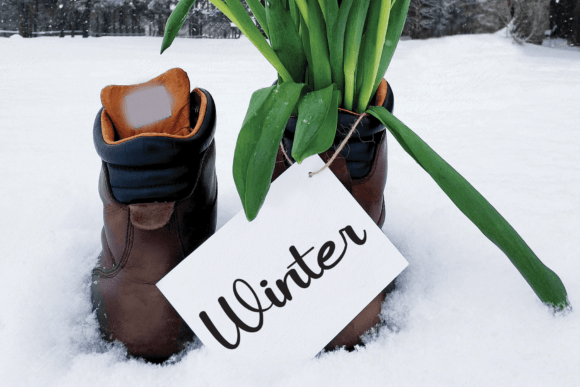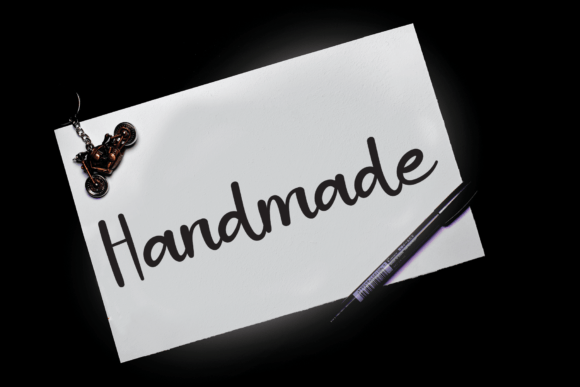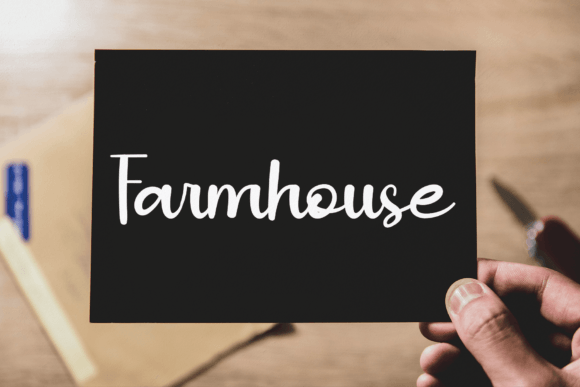
About Carrot Font
Creating a captivating and distinctive font is an art form that combines elegance, uniqueness, and timeless appeal. The unnamed handwritten font in question embodies these qualities, offering a truly one-of-a-kind experience for your favorite design projects.
At first glance, this font stands out with its unparalleled elegance, as if each stroke was meticulously crafted to perfection. The handwritten touch adds a layer of authenticity and warmth, creating an immediate connection with the audience. It’s not just a font; it’s a visual journey, an exploration of artistic expression.
What makes this font truly remarkable is its ability to be totally different from the conventional. It breaks free from the mundane, presenting a style that is both refreshing and innovative. It’s not bound by the constraints of typical fonts but rather carves its own path, inviting you to fall in love with its distinct character.
In the world of design, timelessness is a coveted attribute, and this font effortlessly captures that essence. Its style transcends trends and fads, making it a reliable choice for projects that aim to withstand the test of time. It’s not just a font for today; it’s a font for every era, a classic in the making.
Imagine the possibilities when you incorporate this font into your designs. Each letter becomes a brushstroke of creativity, a testament to the limitless potential of your imagination. It transforms ordinary projects into spectacular works of art, leaving an indelible mark on the visual landscape.
Whether you’re working on branding, invitations, posters, or any other creative endeavor, this font becomes a key player in the narrative. It speaks a language of elegance and innovation, telling a story that resonates with those who encounter it. It’s not just a font; it’s a conversation starter, a piece of art that sparks inspiration.
In conclusion, this unique handwritten font is more than just a tool for your projects. It’s an experience, a journey into the extraordinary. Fall in love with its elegance, embrace its uniqueness, and let it be the muse for your most spectacular designs. With every letter, it beckons you to create, innovate, and leave an indelible mark on the world of design.